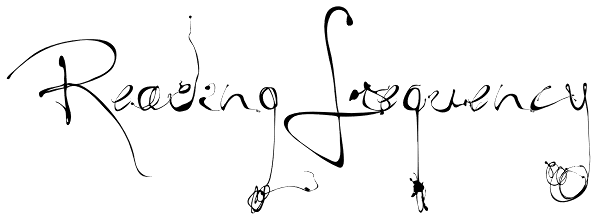
Reading Frequency
Ever wonder what language looks like? This type decided to dive into this idea... how audible and visual forms play with each other. The forms you see also have been waterjet-cut out of stainless steel sheets. With these physical forms, one day in a...